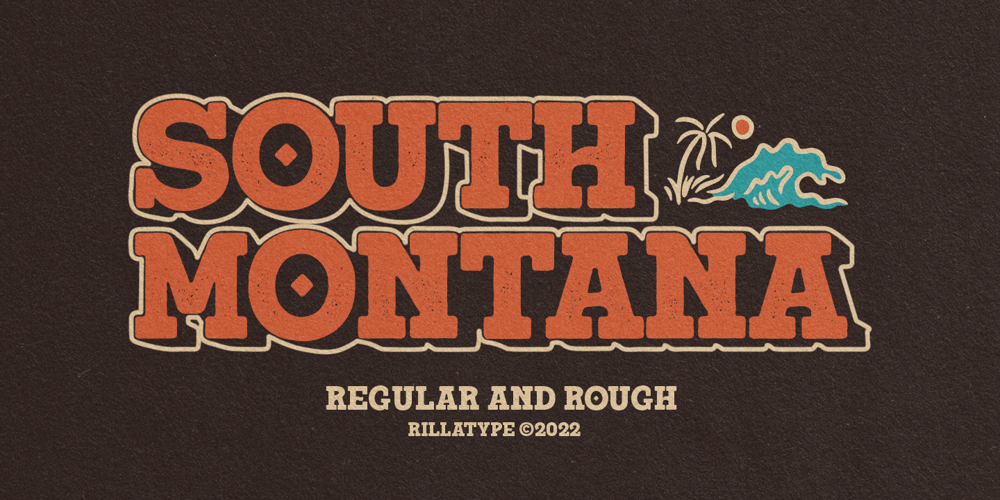
South Montana Font Family was designed by Gustian Agung Asprilla and published by Rillatype. South Montana contains 2 styles and family package options. Introducing, South Montana. South Montana is a bold slab serif that comes with regular and rough style. this font is perfect for every project. suitable for branding logo, badge design, or apparel design. this font also comes with multilingual support.